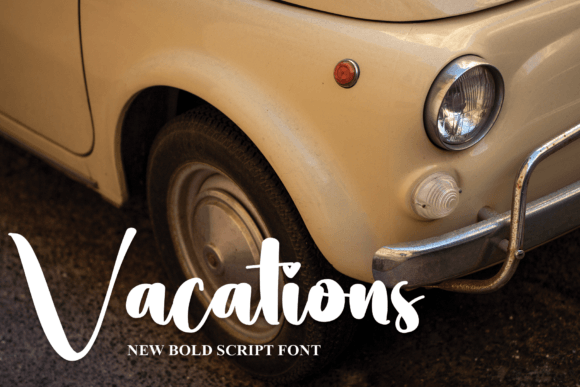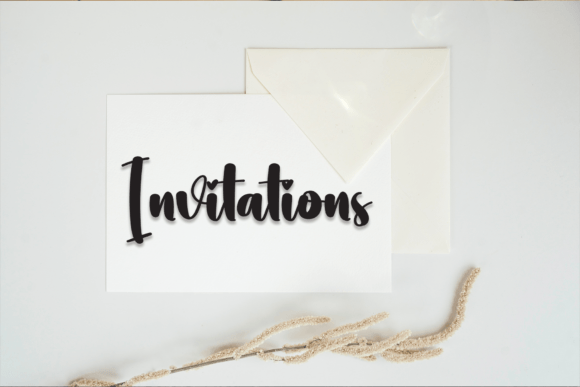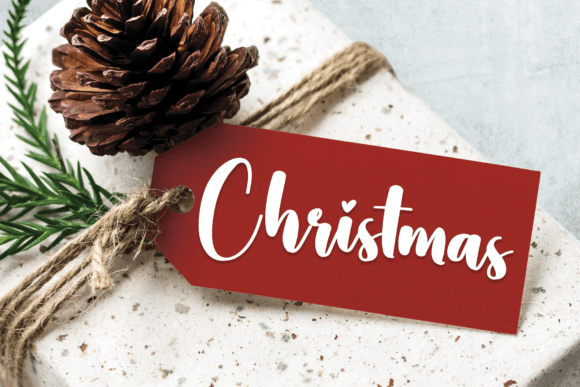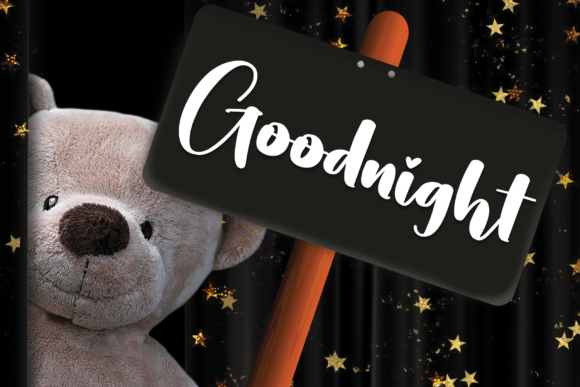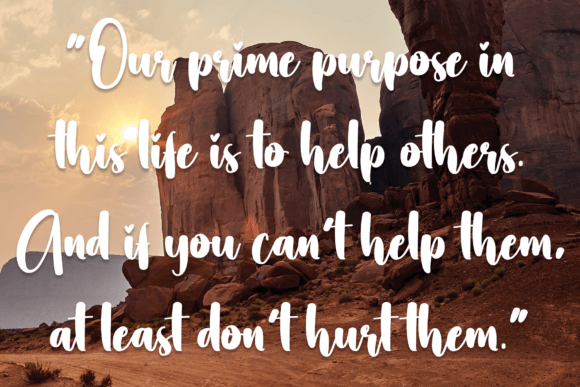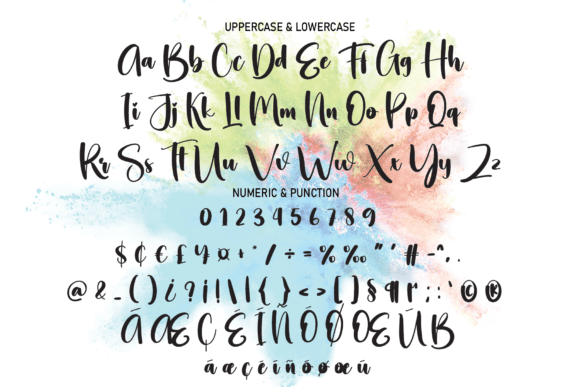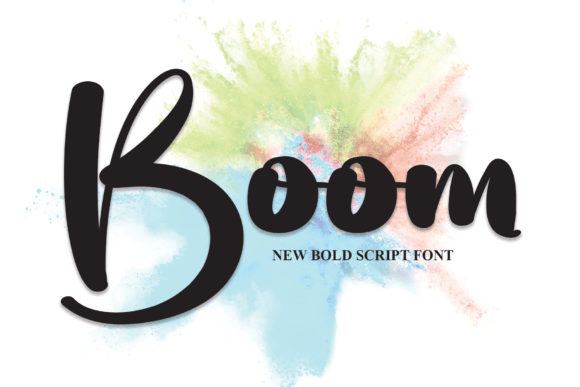
The Ultimate Guide to Boom Font: Elevate Your Design with Handwritten Flair
What is Boom Font?
Boom Font is a stylish, handwritten typeface perfect for adding a personal touch to your designs. Its latest style letters are ideal for various projects, including wall displays, wedding invitations, social media post logos, advertisements, product packaging, product designs, labels, photography, watermarks, invitations, stationery, and more.
Here’s what I love about Boom Font:
• ✨ Unique and eye-catching handwritten style
• ✅ Highly versatile and adaptable to various design projects
• ✅ Easy to read and understand, even in smaller sizes
While Boom Font is an excellent choice, it’s not without its quirks:
• 🤔 Some users may find the font a bit too ornate for very formal projects
The story behind Boom Font is one of creativity and passion. Its designer, inspired by the beauty of handwritten letters, set out to create a font that would bring a personal touch to digital designs. With Boom Font, you can add a dash of elegance and whimsy to your projects, making them truly unforgettable.
Font Name Boom Font
What is Boom Font best used for? Boom Font is perfect for designs that require a handwritten touch, such as wedding invitations, social media graphics, and product packaging.
Is Boom Font easy to read? Yes, Boom Font is designed to be highly legible, even in smaller sizes.